2 Google Fonts Similar to Brandon Grotesque
Brandon Grotesque is a sans-serif font created by Hannes von Dohren in 2009. It was inspired by 1920s geometric sans-serif fonts.
What makes this font so special is that is a practical look with a warm touch. Its light and medium weights work great for longer texts.
Brandon Grotesque is a really unique font style. So this makes it very difficult to find a good alternative.
With that being said, I believe that I have found to be the two most similar looking fonts to Brandon Grotesque from the Google Font library.
Neither one of these is an exact match, but if you are working on a budget then they should get the job done.
What Google Fonts are Similar to Brandon Grotesque?
The two most similar looking fonts to Brandon Grotesque from Google Fonts are:
- Cabin
- Josefin Sans
I believe that either one of these two fonts would make for a decent alternative.
So lets jump into each one explaining their similarities and differences.
Cabin
Cabin is probably going to be your best bet. Athough not an exact match, it does do a decent job in matching the very unique lowercase "g" in Brandon Grotesque.
I would argue that it is about an 80% match in lowercase and a 70% match in uppercase.
The main differences in lowercase are the "f" and "j". Other letters are not exact but close enough.
For example, the down stroke on the "t" has a little tail that sticks up. Cabin also features that same tail, but it is more to the side than sticking up.
I made a few images for you to compare for yourself.
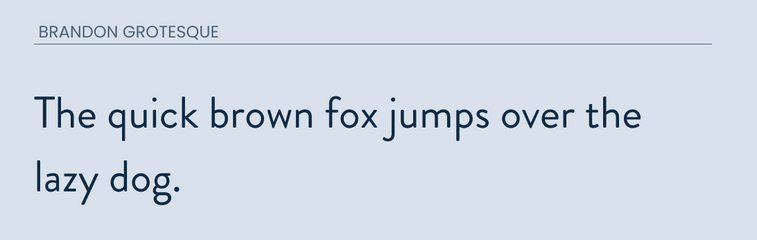
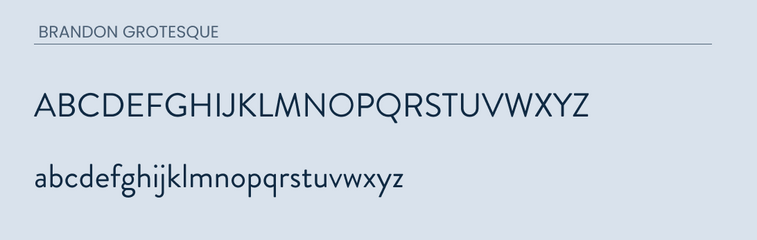
Josefin Sans
Josefin Sans is another good alternative for Brandon Grotesque. It seems to match that same quirkiness that Brandon Grotesque has.
The main difference between these two is the "z". Josefin Sans features this uptick on the initial stroke of their z. This is something pretty unique to them.
Other letters that are different are the "J", "M", and "Q".
Take a look for yourself.
Final thoughts
Sometimes we get lucky in finding an exact match for a premium font on Google Fonts. In this case, neither font is a real winner. The will match better than the other fonts you can find. So if you are on a tight budget, then either one of these may work for you.